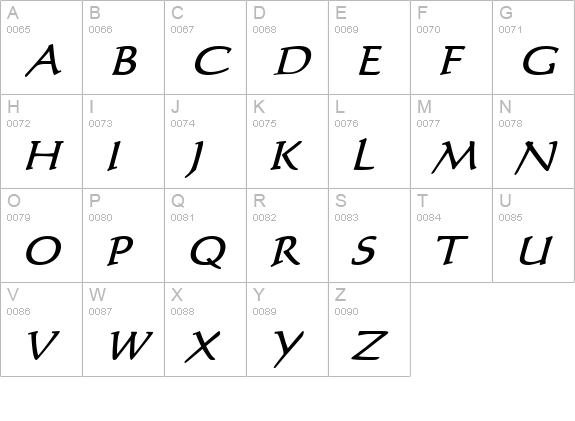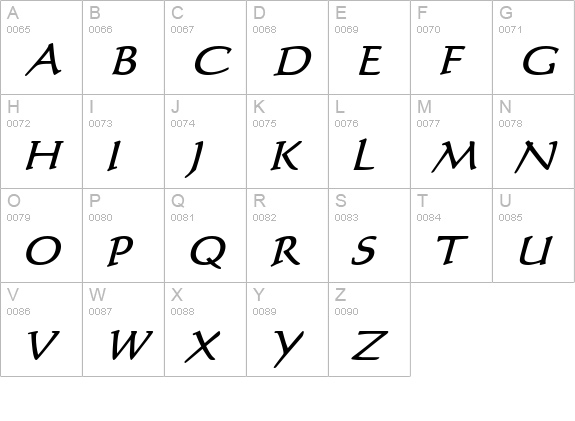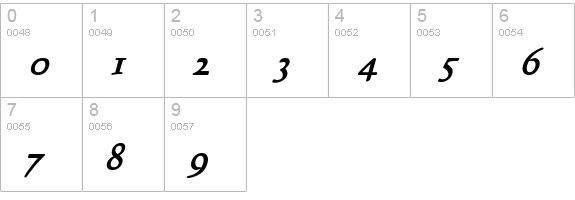
Calli 109 BoldItalic Font Details
Introducing Calli 109 BoldItalic font, a sleek and modern typeface that exudes elegance and sophistication. This versatile font is perfect for a wide range of design projects, from branding to editorial design and everything in between. The unique combination of bold strokes and italicized detailing gives Calli 109 a distinctive and eye-catching look that is sure to make your designs stand out. And the best part? Calli 109 BoldItalic font is available for free download at FontsMarket.com! This means you can easily access this stylish font and incorporate it into your projects without breaking the bank. Whether you're a professional designer or just looking to add a touch of flair to your personal creations, Calli 109 BoldItalic font is the perfect choice. Download it today and elevate your designs with this stunning typeface.